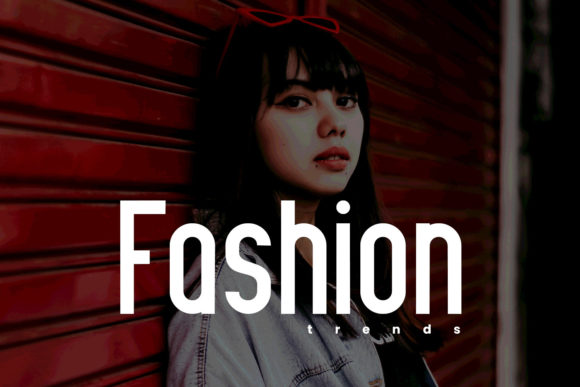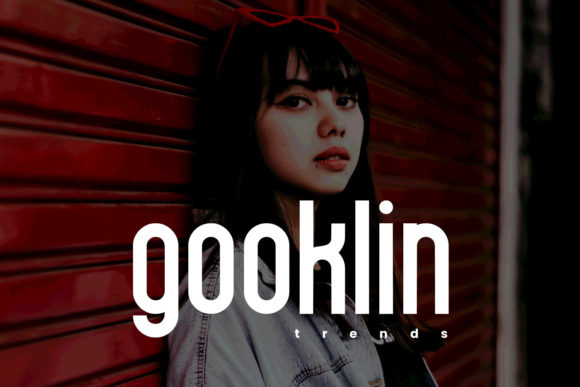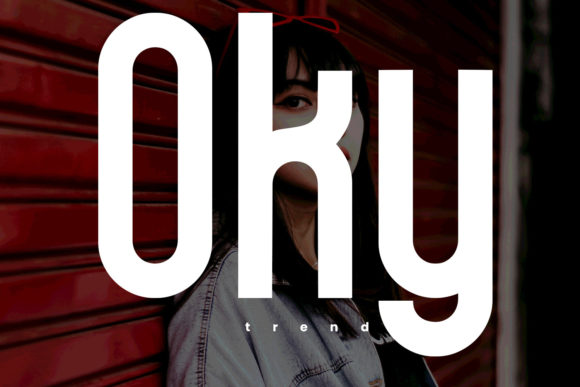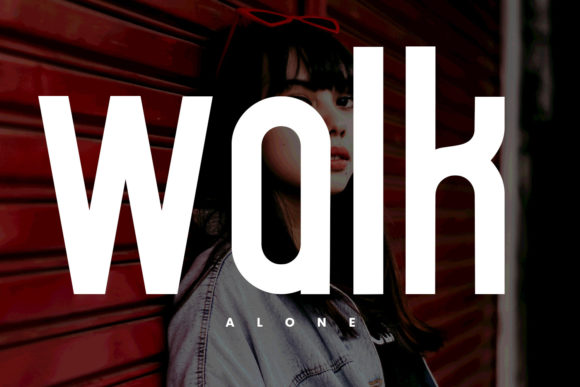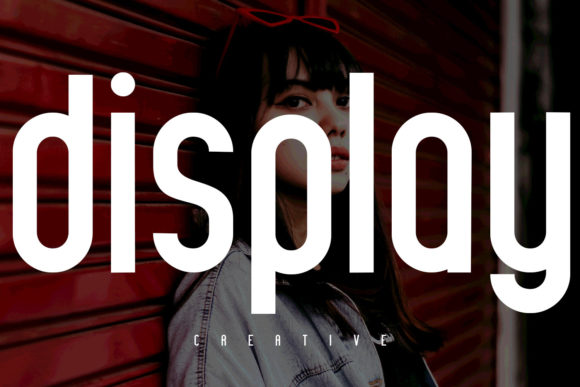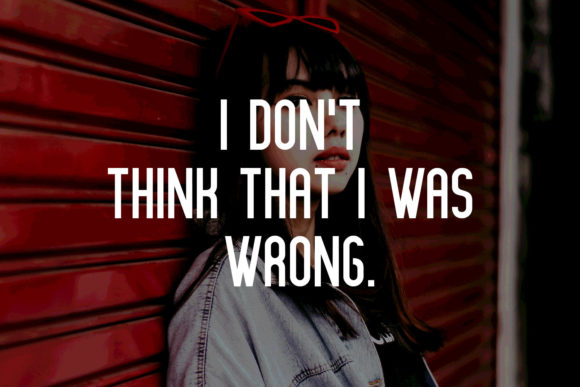
Introducing Helen Font: The Cool, Robotic Display Font for Futuristic Designs
Are you looking for a font that can add a touch of futurism to your designs? Look no further than Helen Font, a cool, robotic display font that’s perfect for creating web designs, business cards, and more. In this article, we’ll take a closer look at Helen Font, its features, and how you can use it to take your designs to the next level.
What is Helen Font?
Helen Font is a modern, sans-serif display font that’s designed to give your text a robotic and futuristic feel. With its clean lines, geometric shapes, and precise curves, Helen Font is ideal for designs that require a high-tech look. Whether you’re creating a website, a business card, or a brochure, Helen Font is the perfect choice for adding a touch of innovation and sophistication.
Key Features of Helen Font
- Unique and Modern Design: Helen Font has a distinctive and modern design that’s sure to grab attention. Its robotic look makes it perfect for designs that require a futuristic touch.
- Clean and Legible: Despite its futuristic look, Helen Font is clean and legible, making it easy to read and understand.
- Versatile: Helen Font can be used for a wide range of designs, from web designs and business cards to brochures and posters.
How to Use Helen Font in Your Designs
Helen Font is a versatile font that can be used in a variety of designs. Here are some ideas to get you started:
- Web Designs: Use Helen Font as a header font to add a touch of futurism to your website. You can also use it for buttons, icons, and other UI elements.
- Business Cards: Add a touch of innovation and sophistication to your business cards with Helen Font. It’s perfect for creating a memorable and professional impression.
- Brochures and Posters: Use Helen Font to add a futuristic touch to your brochures and posters. It’s perfect for creating eye-catching headlines and titles.
- Logos and Branding: Helen Font can also be used to create logos and branding materials that require a modern and futuristic look.
Tips for Getting the Most Out of Helen Font
Here are some tips for getting the most out of Helen Font:
- Use it Sparingly: Helen Font is a bold font, so use it sparingly to avoid overwhelming your design. Use it for headlines and titles, and a more traditional font for body text.
- Experiment with Colors: Helen Font looks great in a variety of colors, so experiment with different colors to find the one that works best for your design.
- Pair it with Other Fonts: Helen Font can be paired with other fonts to create a unique and interesting look. Try pairing it with a traditional serif font for a contrasting look.
Helen Font is a cool, robotic display font that’s perfect for adding a touch of futurism to your designs. With its unique and modern design, clean lines, and precise curves, Helen Font is ideal for creating web designs, business cards, and more. Whether you’re a designer or a crafter, Helen Font is a great addition to your font library. So why not give it a try and see how it can take your designs to the next level?